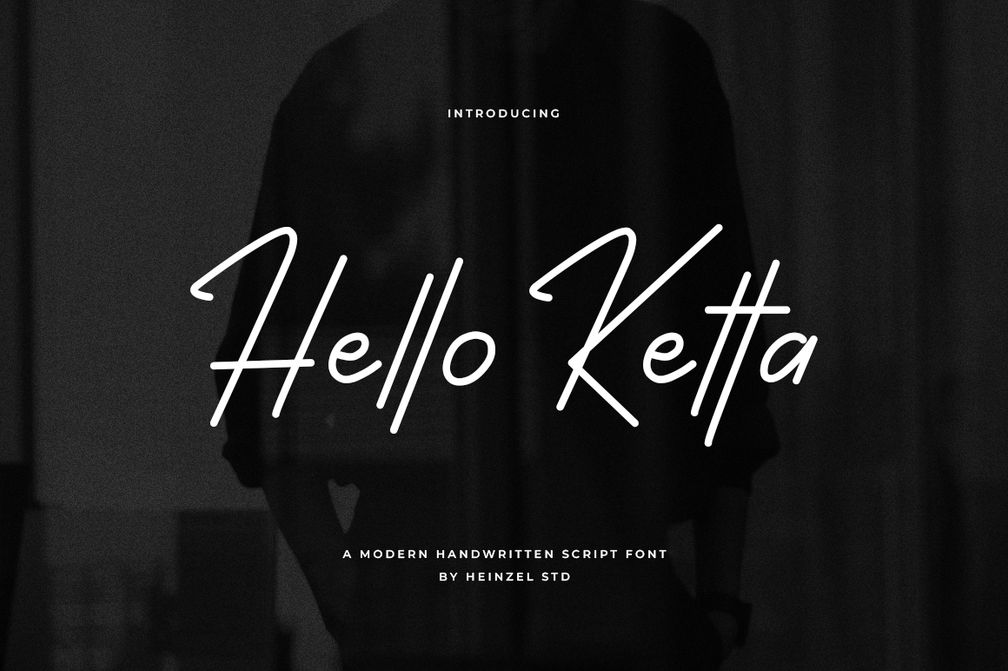
Hello Ketta Handwritten Font
Hello Ketta is a stylish handwritten script font designed to bring a personal, modern, and elegant touch to your projects. With smooth curves and natural strokes, this font is perfect for branding, logos, wedding invitations, social media posts, product packaging, stationery, and more.
Crafted to combine simplicity and sophistication, Hello Ketta offers a versatile handwritten style that works beautifully for both digital and print designs. Its clean and legible script makes it ideal for bloggers, creative entrepreneurs, and designers who want to add a friendly yet professional feel to their work.
Hello Ketta Features:
- Uppercase and Lowercase
- Numerals and Punctuations
- Multilingual Support
- Ligatures
Elevate your design projects with Hello Ketta – the handwritten font that blends creativity, elegance, and modern charm.